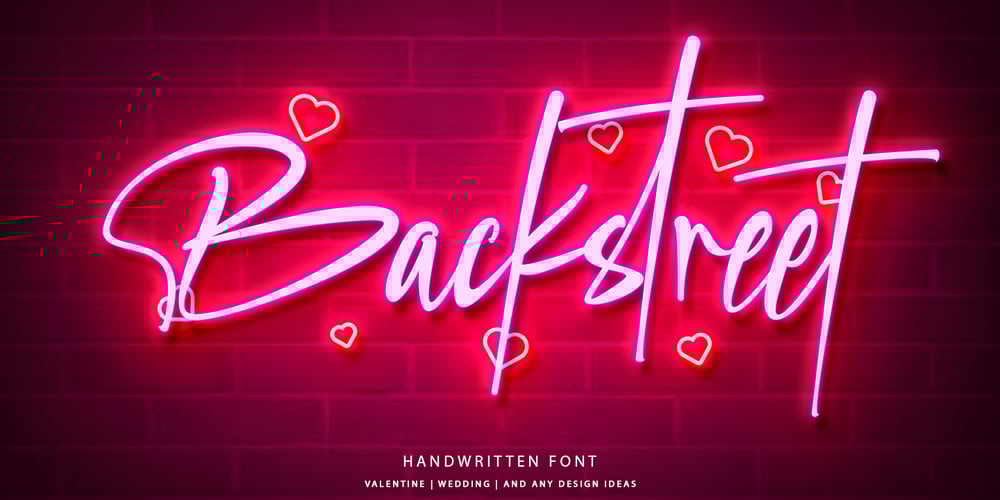
Backstreet
Backstreet font
Backstreet Font Family was designed by Thomas Aradea and published by Letterara. Backstreet contains 2 styles and family package options. Backstreet is a purely handwritten typeface with its own unique characteristics. It has an elegant, feminine style with good readability. Perfect for Valentine day, neon design, signatures, invitations, titles, and much more! To stay up to date for my latest job, follow me and let’s be friends because there will be many promos.